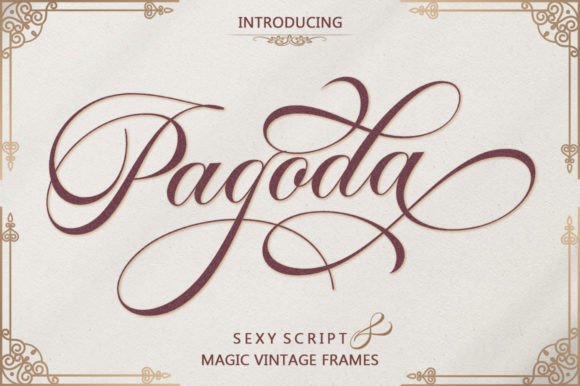
Step into a world of typographic grace with Pagoda Font, a captivating script font that will ignite your creative spark. With its enchanting handwritten style, Pagoda Font is a true masterpiece crafted by the skilled hands of HKL Studio. As an embodiment of elegance and artistry, this font family invites you to explore the boundless possibilities of visual expression.
Unleash your imagination and let the Pagoda Font dance across your designs, leaving an enchanting trail of beauty in its wake. Its graceful curves and delicate strokes possess an intrinsic charm that will elevate your projects to new heights. Whether you're crafting heartfelt greeting cards, designing eye-catching headlines, or seeking to add a touch of romance to your latest endeavor, Pagoda Font is your perfect companion.
Experience the versatility of Pagoda Font as it seamlessly adapts to a myriad of applications. Its inherent charm shines through in logos, branding, wedding invitations, social media graphics, and countless other creative ventures. The possibilities are boundless, limited only by the depths of your imagination.
With Pagoda Font, you unlock a world of creative freedom. Its meticulously crafted glyphs and ligatures, accessible with ease through PUA encoding, provide endless opportunities to explore unique and captivating letter combinations. Indulge in the joy of customization and let your designs radiate with personality.
Join the growing community of designers, artists, and creative enthusiasts who have succumbed to the allure of Pagoda Font. Let your words take on a life of their own, imbued with the charm and elegance that only this script font can provide.